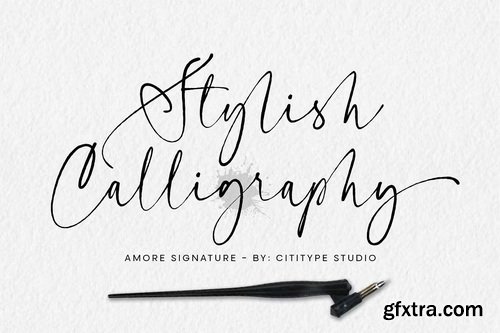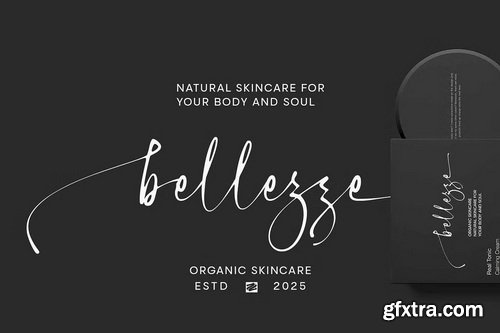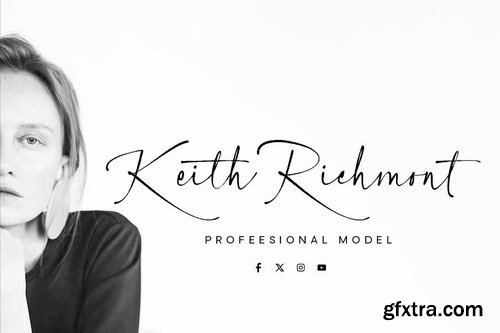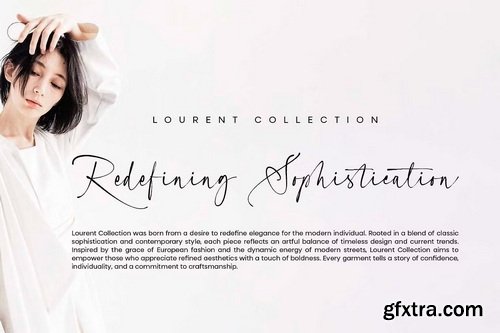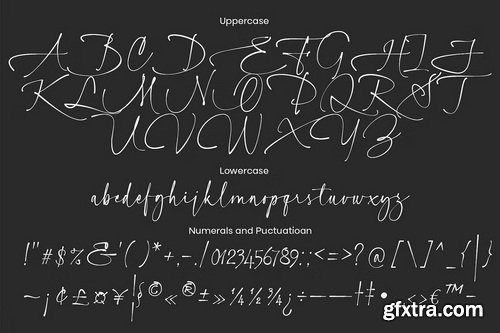
- Amore Signature is a stylish signature font that exudes elegance and sophistication in every stroke. Designed with smooth, flowing lines, this font brings a luxurious, personal, and charismatic touch—just like a handwritten ink signature.
- Created for various design needs, Amore Signature is perfect for branding, logos, invitations, product packaging, and other creative projects. With its naturally flowing letters and unique ligatures, this font adds an exclusive and artistic touch to every work.
- Amore Signature also includes features such as alternates, ligatures, and multilingual support, making it an excellent choice for designers who seek an authentic and professional handwritten style.